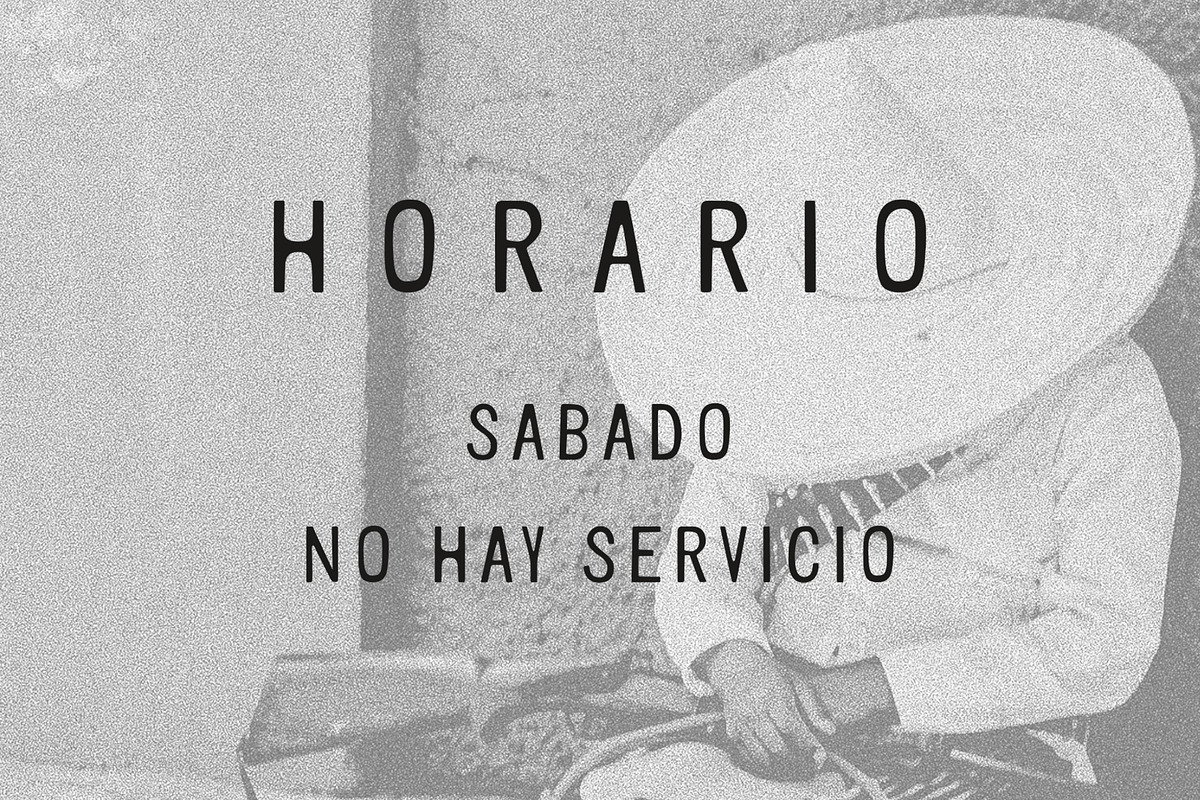
HORARIO Typeface
When every character must speak with unwavering clarity and presence, Horario steps in—sharp, confident, and completely dependable. Designed as a fully functional all caps typeface, Horario strips away distraction and delivers pure visual power. From bold headlines to sleek corporate identities, this font doesn’t just set text—it commands attention, one clean, deliberate letter at a time.
Engineered for Functionality, Built for Modern Design
Holistic design isn’t about flair alone—it’s about performance. Horario is not a decorative curiosity; it’s a precision tool built for real-world projects. Every glyph is meticulously crafted to ensure full compatibility across digital and print formats. Whether you’re designing a product label, a fashion campaign, a tech dashboard, or a minimalist logo, Horario performs without compromise.
• Strict All Caps Format: Eliminates visual noise. Creates strong, unified visual rhythm across headlines, tags, and branding elements.
• Full Punctuation Support: Includes periods, commas, colons, semicolons, quotes, brackets, and more—no broken layouts, no missing signs.
• Complete Numerical Set: Full digit coverage (0-9) with consistent spacing and alignment, perfect for stats, pricing, timelines, and data visualization.
• Optimized for Readability: Despite its uppercase structure, Horario avoids the common pitfalls of all caps by maintaining excellent letter spacing and counter balance—no squinting, no confusion.
• Neutral yet Bold Aesthetic: The clean, geometric structure ensures it fits seamlessly into both high-end luxury branding and tech-forward modern minimalism.
Where Horario Makes the Difference: High-Performance Use Cases
Horario thrives where precision matters. It’s not just a font—it’s a design principle in a file. See how creatives are leveraging its strength:
• Corporate Branding: Use Horario in your company name, tagline, or product names to project authority and modern sophistication. Think: “Apex Systems. Built to Lead.”
• Logo & Wordmark Design: Its all caps format ensures maximum legibility and visual consistency across devices and sizes. Ideal for startups, agencies, and tech firms.
• Headlines & Banner Copy: Make your content stand out in digital ads, social media posts, landing pages, and editorial layouts with sharp, high-impact text.
• Product Packaging & Labels: Clean, bold, and professional—perfect for cosmetics, electronics, food, and beverage packaging where clarity and premium feel are critical.
• Web & App UI Typography: Use Horario for navigation labels, buttons, icons, or status indicators. Its consistent stroke weight and uniform structure prevent visual fatigue.
• Event & Conference Titles: Convey prestige and urgency. “Horario 2026: The Future of Design.”
Design with Confidence, Not Compromise
Too many fonts sacrifice functionality for style. Horario refuses to choose. It’s a typeface that works—deeply, thoroughly, and reliably. With a robust set of glyphs and a design mindset focused on usability, it supports modern workflows out of the box.
Why All Caps? Why Horario?
In a world of lowercase informality, Horario stands firm. It’s not about shouting—it’s about clarity. All caps don’t always mean louder; in Horario’s hands, they mean cleaner, stronger, more intentional. It’s ideal for projects where you want your message to be processed instantly—no misinterpretation, no hesitation.
The modern design landscape rewards minimalism—but doesn’t forgive weakness. Horario delivers minimalism with muscle. It’s structured, consistent, and unapologetically functional.